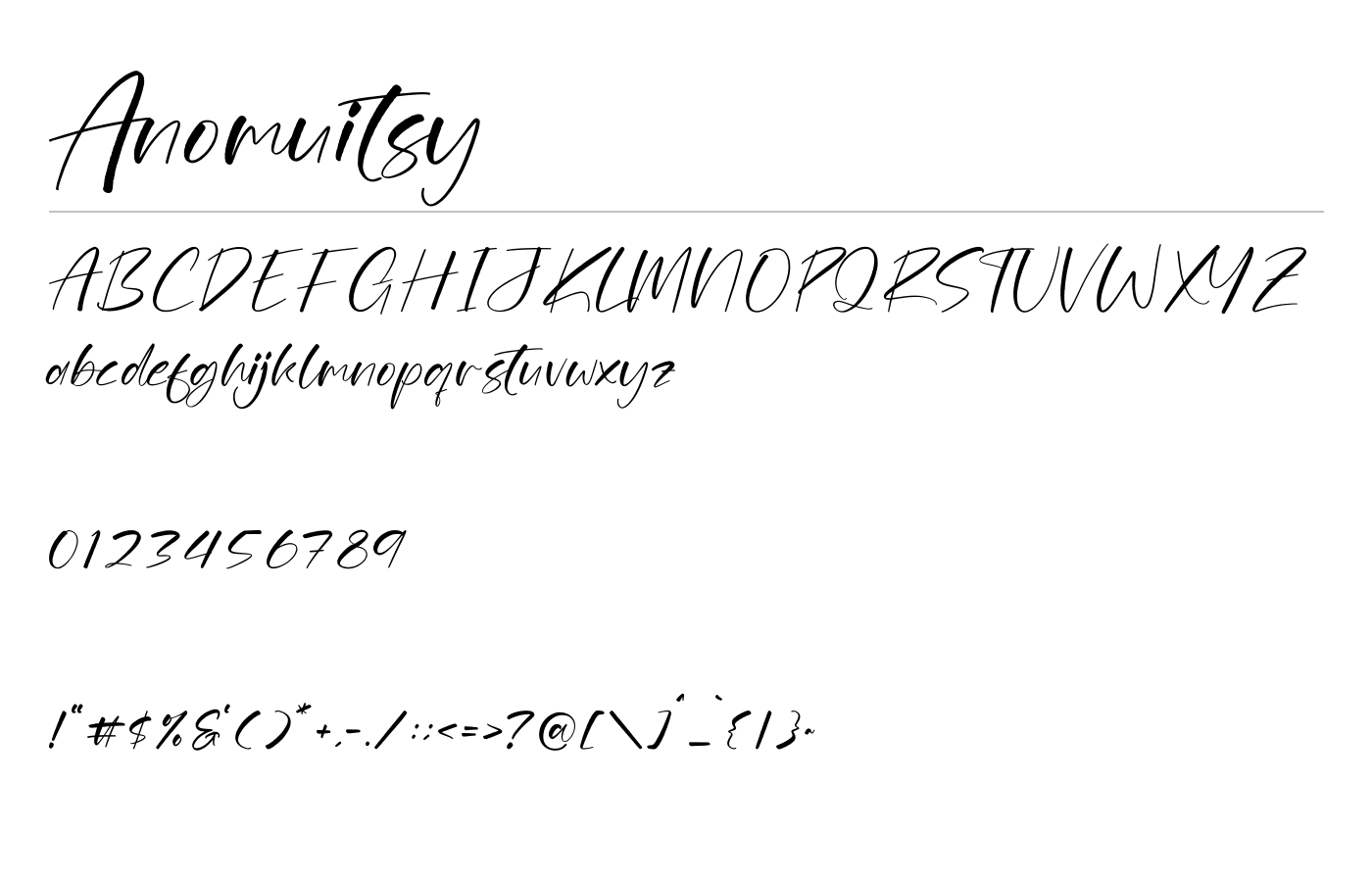
Anomuitsy is a graceful, modern script font with a handwritten feel, featuring fluid, slightly irregular strokes that add warmth and personality. Its elegant yet casual style makes it ideal for creative projects, invitations, branding, and social media where a personal, artistic touch is desired. This font works well in headlines and short text, bringing a stylish and approachable vibe to any design.